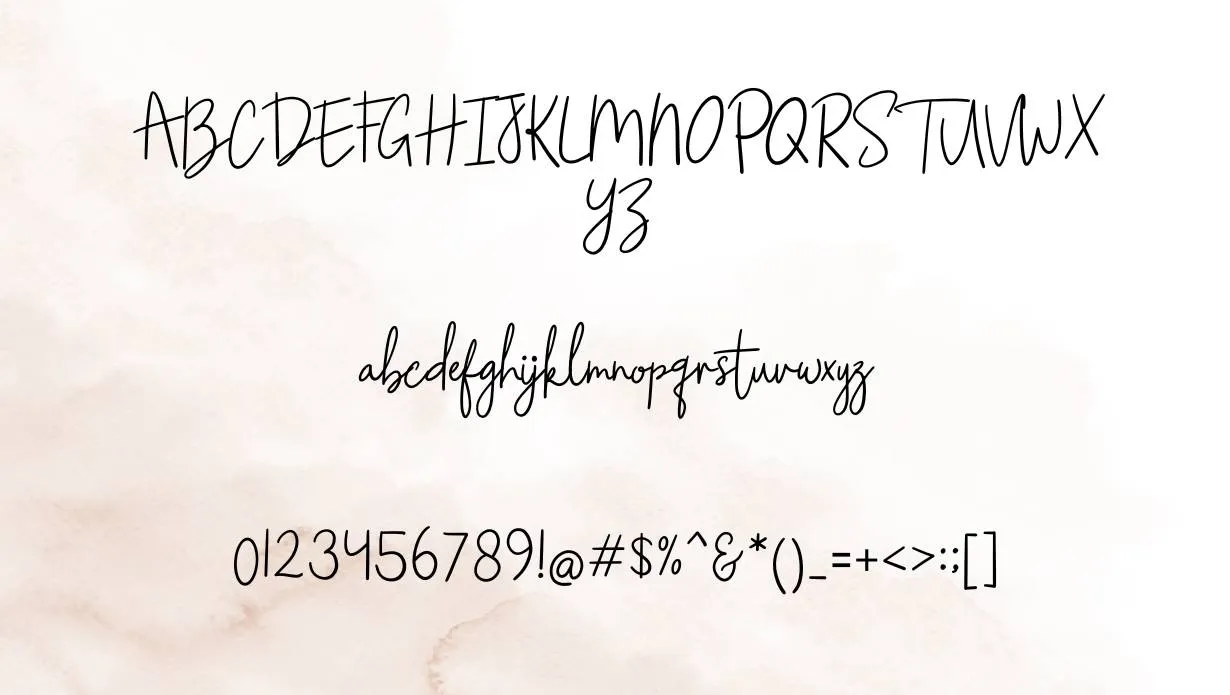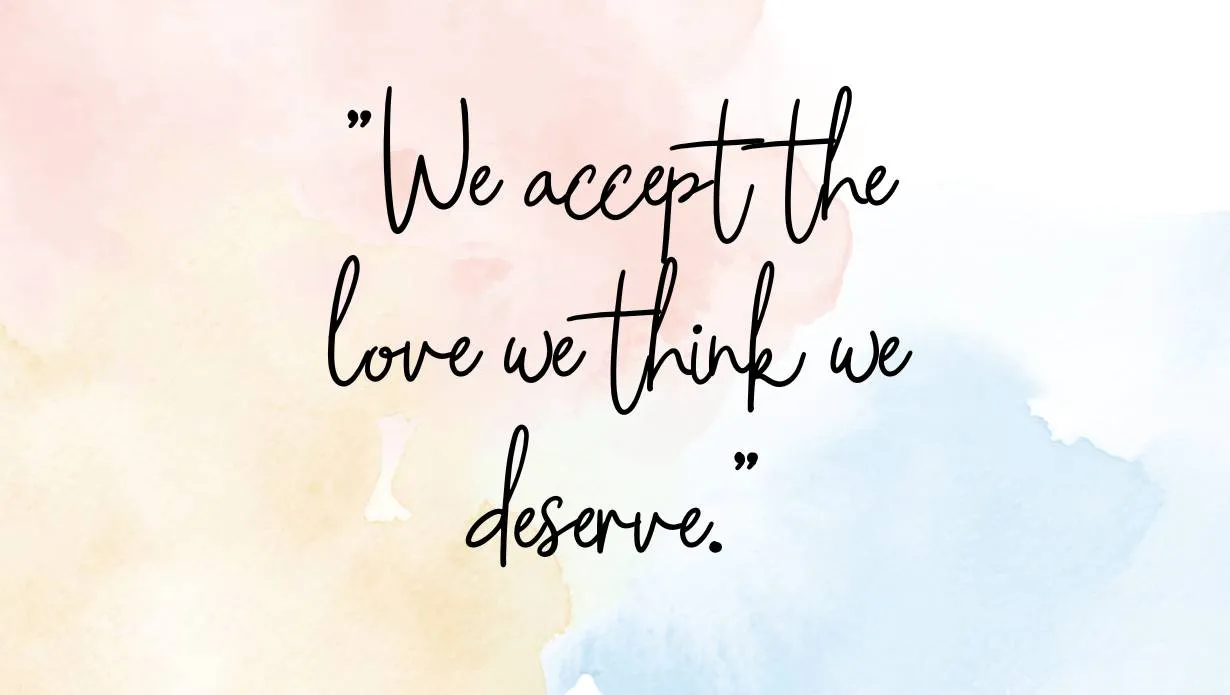
Teacher Signature Font is a modern typeface that comes from the handwritten font family. Najmus Tsaqib designed this splendid typeface and it was published by NT Creator Foundry.
This magnificent typeface is perfect to use for prominent titles. headings, subheadings, and YouTube thumbnails. You can pair this appealing font with sf movie poster font to give a captivating look to your project.
| Name | Teacher Signature Font |
| Designer | Najmus Tsaqib |
| Style | Handwritten |